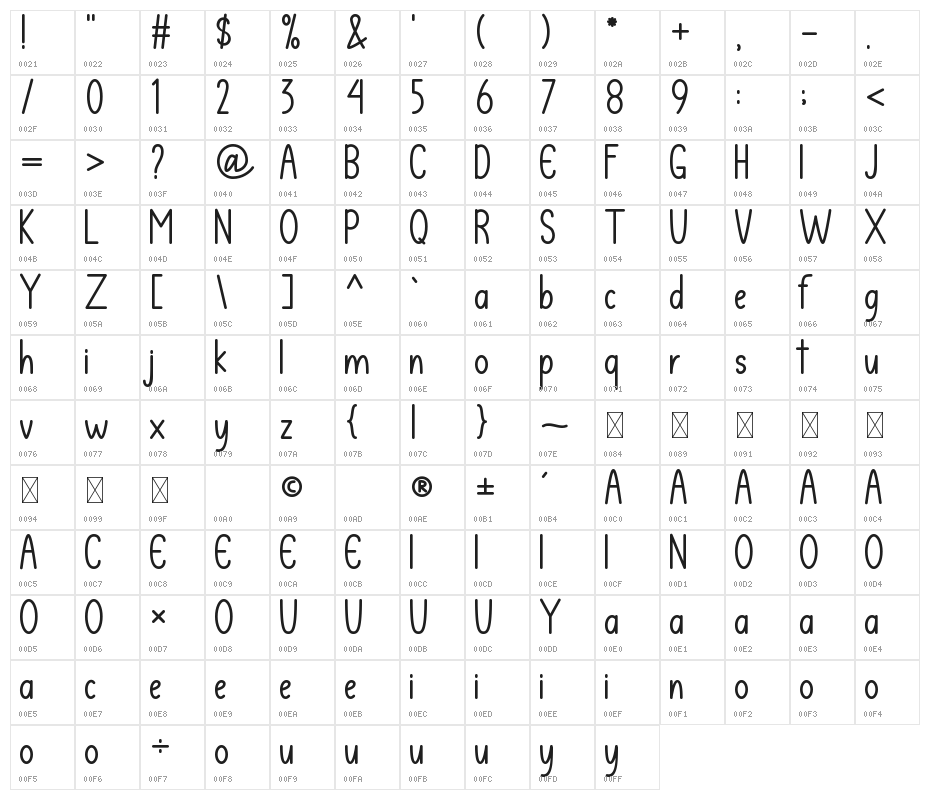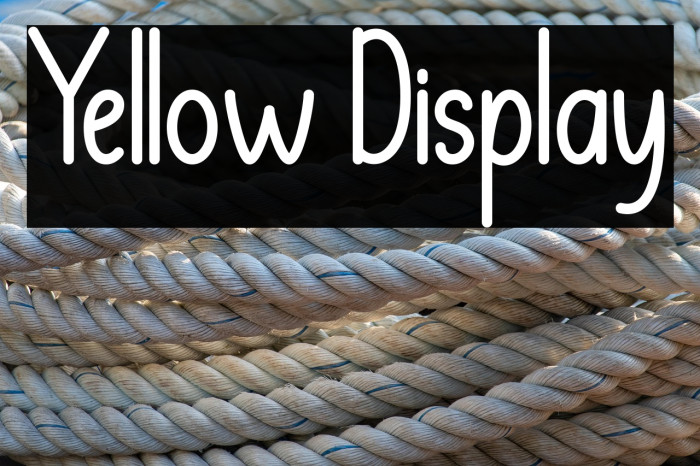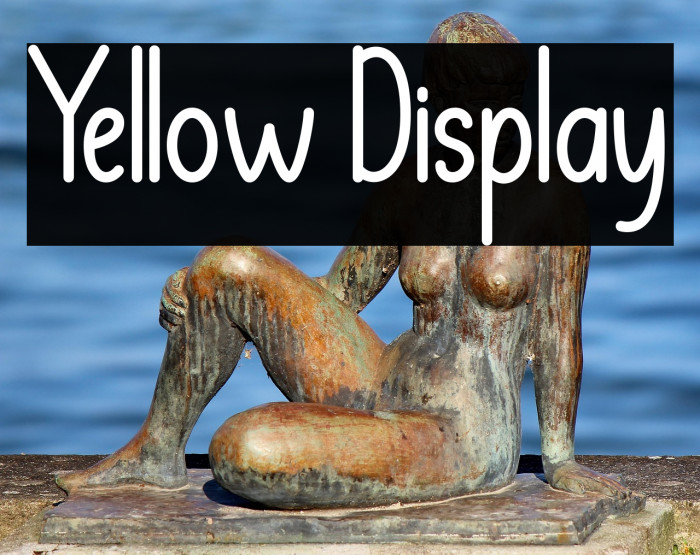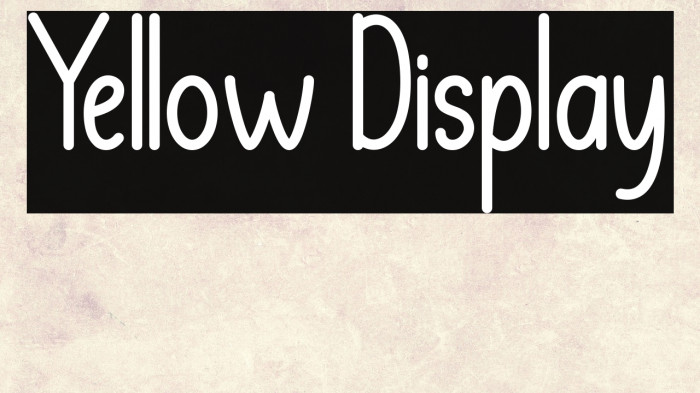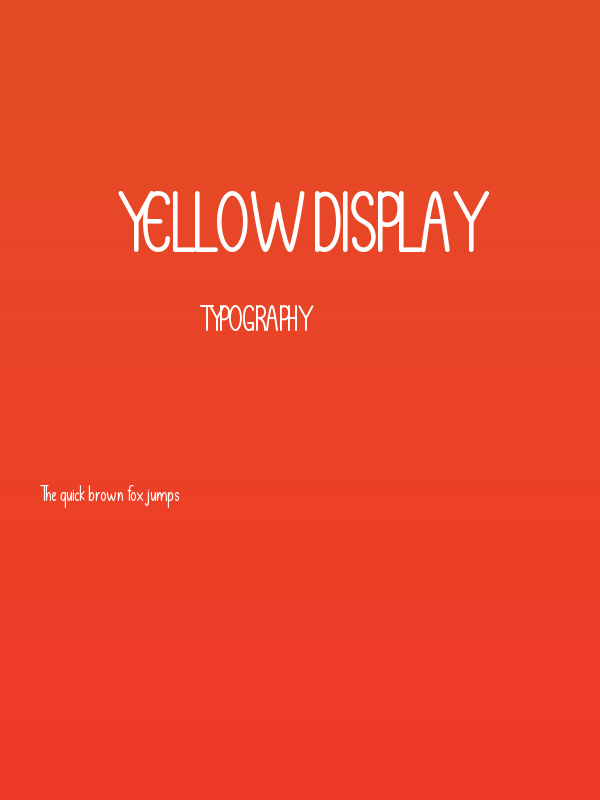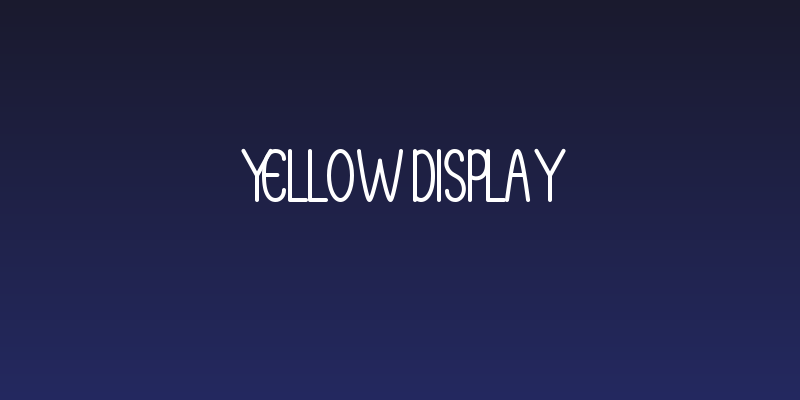
Yellow Display Font
Yellow Display Description
This font features a playful and modern design with tall, narrow characters that have a consistent stroke width. The uppercase letters are bold and elongated, giving a sense of height and elegance. The lowercase letters maintain a similar style, with rounded edges that add a friendly and approachable feel. Numbers are clear and legible, matching the overall aesthetic with their tall and slender form. Special characters are designed to complement the letters, maintaining the same playful and modern vibe. The font's clean lines and uniformity make it suitable for a variety of design projects, offering a unique blend of style and readability.